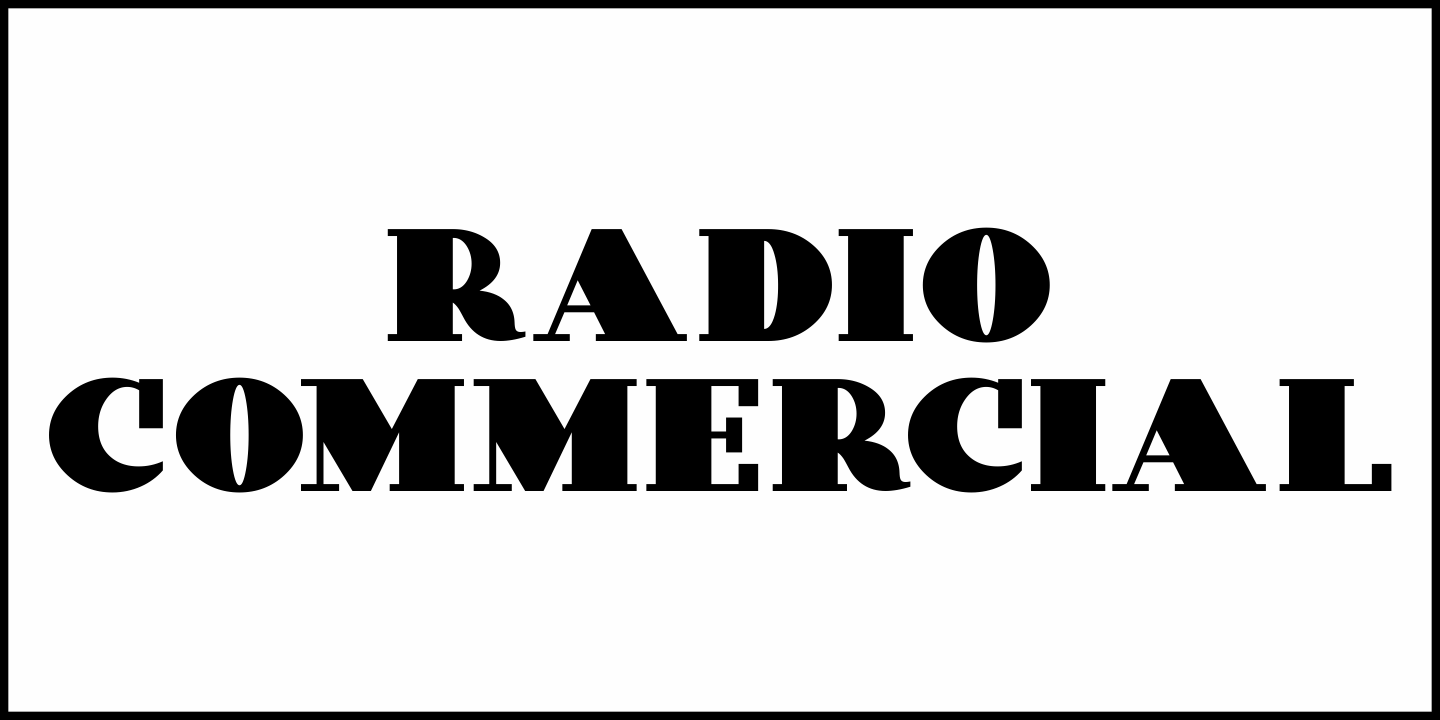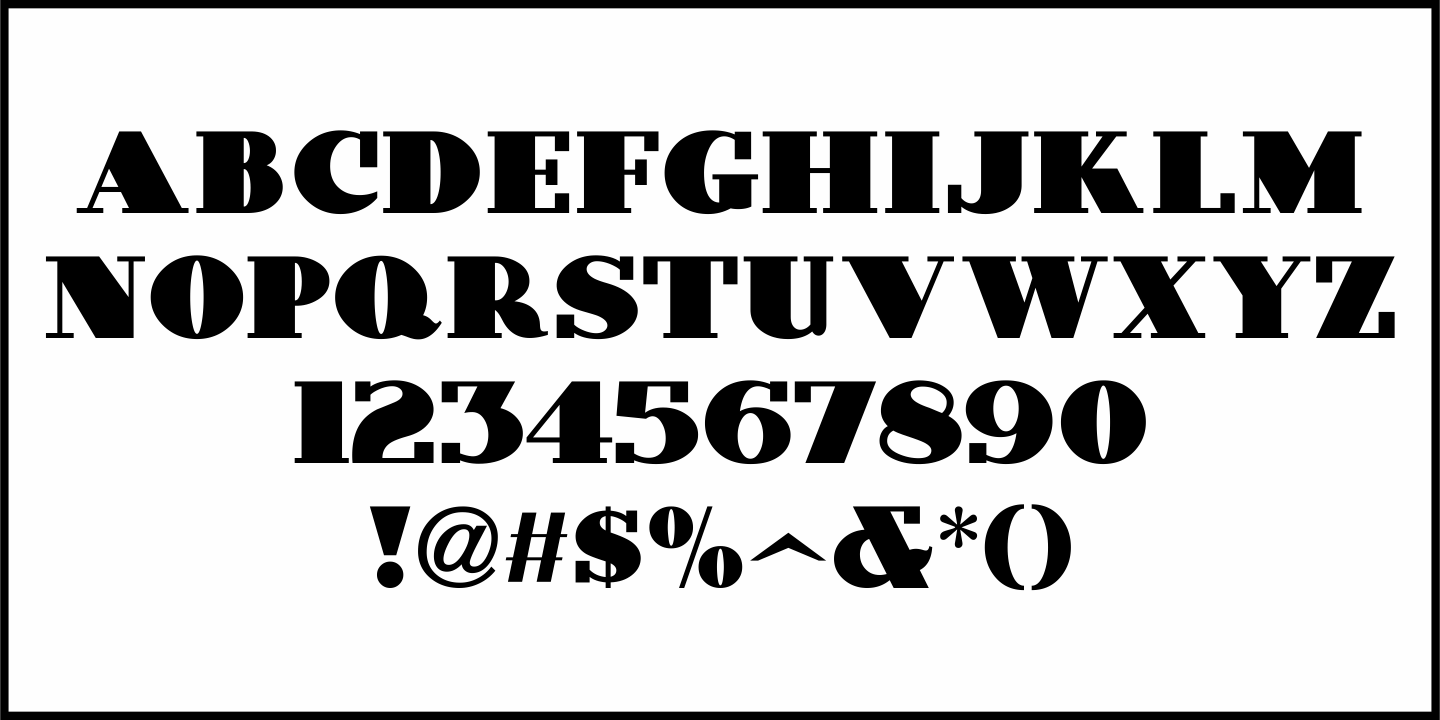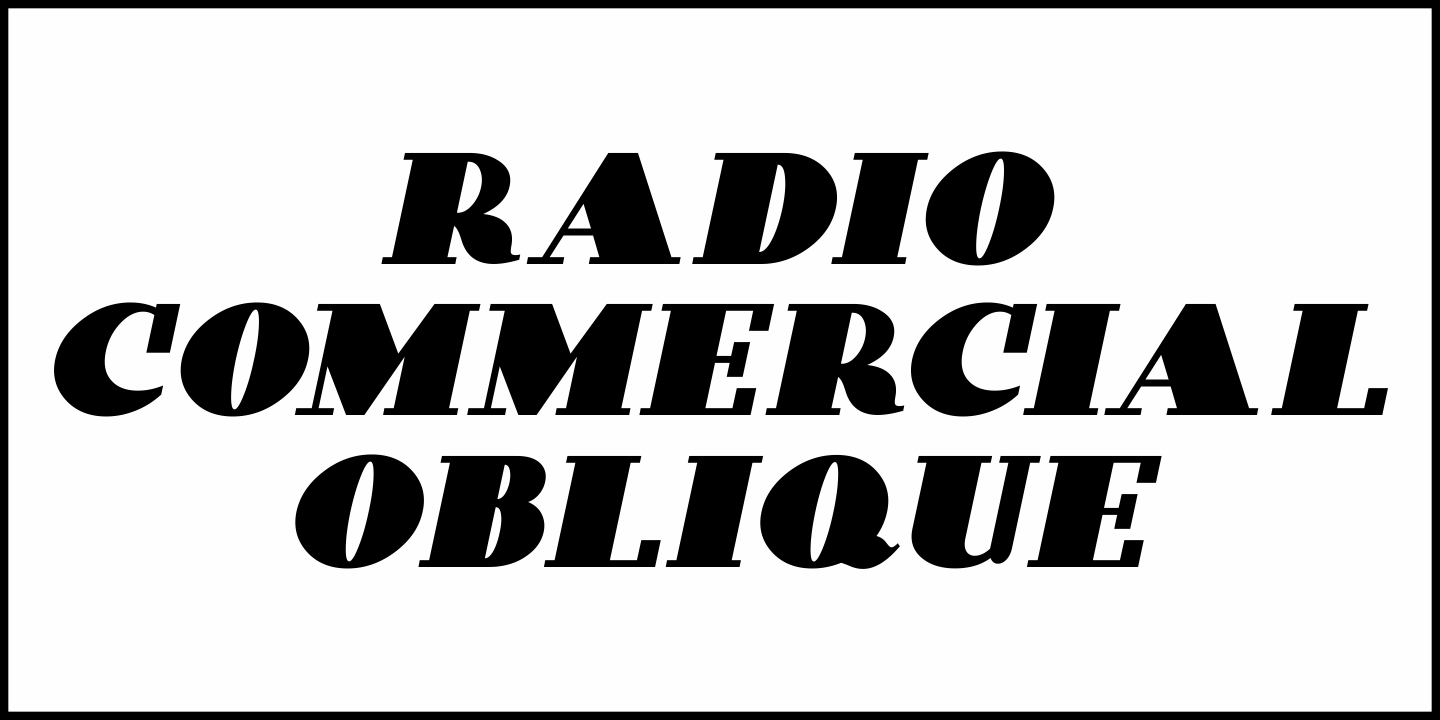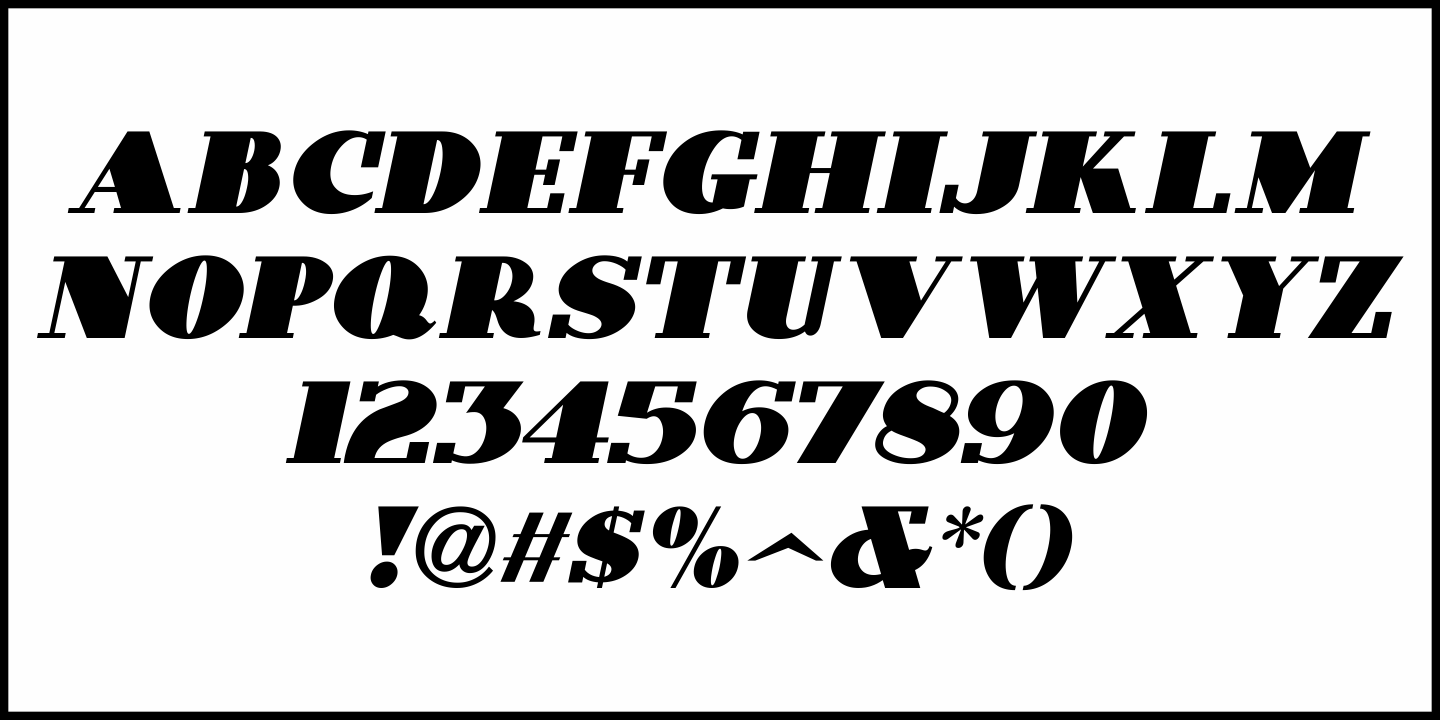
Radio Commercial
The ad for Cincinnati radio staion WKRC in the April 1, 1932 issue of Broadcasting Magazine featured an extra bold hand lettered serif type design.
This inspired Radio Commercial JNL, which is available in both regular and oblique versions.
Radio Commercial Regular by Jeff Levine Fonts